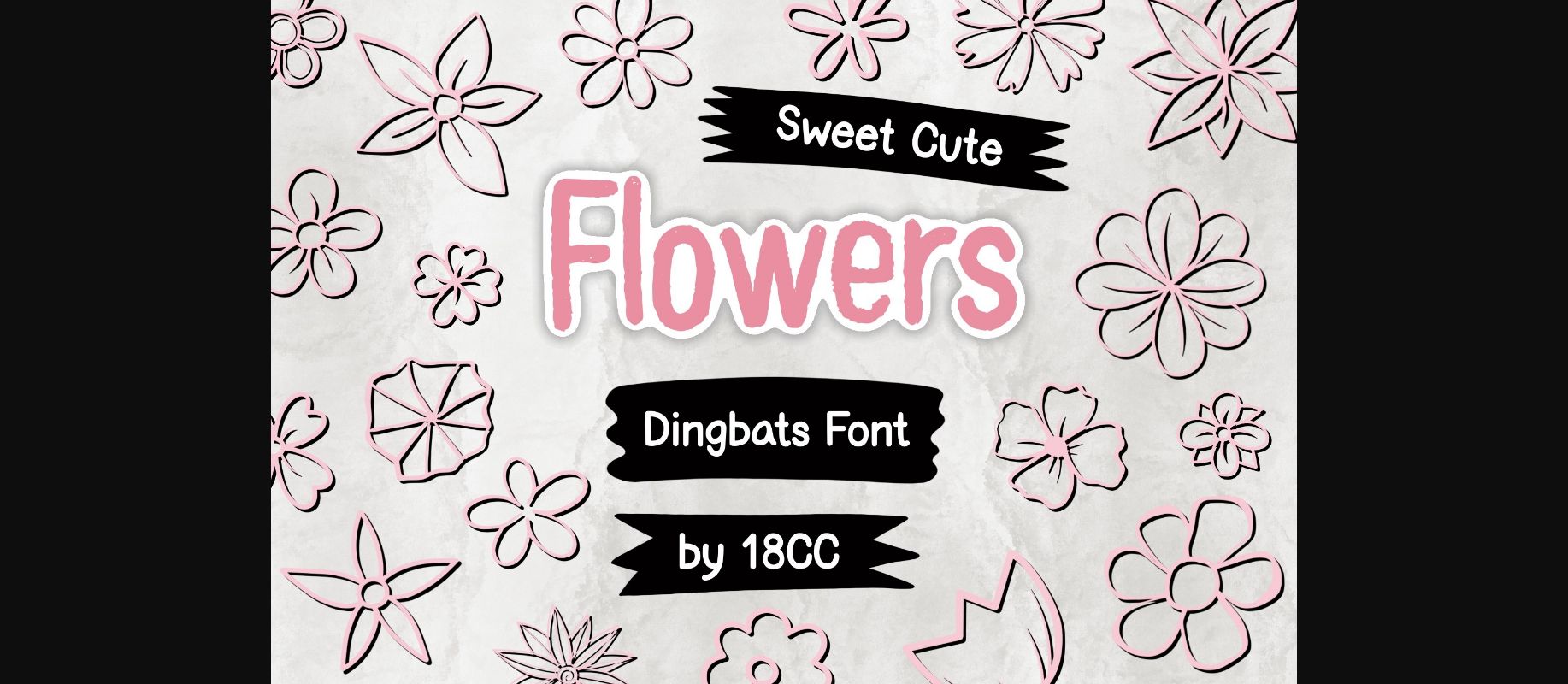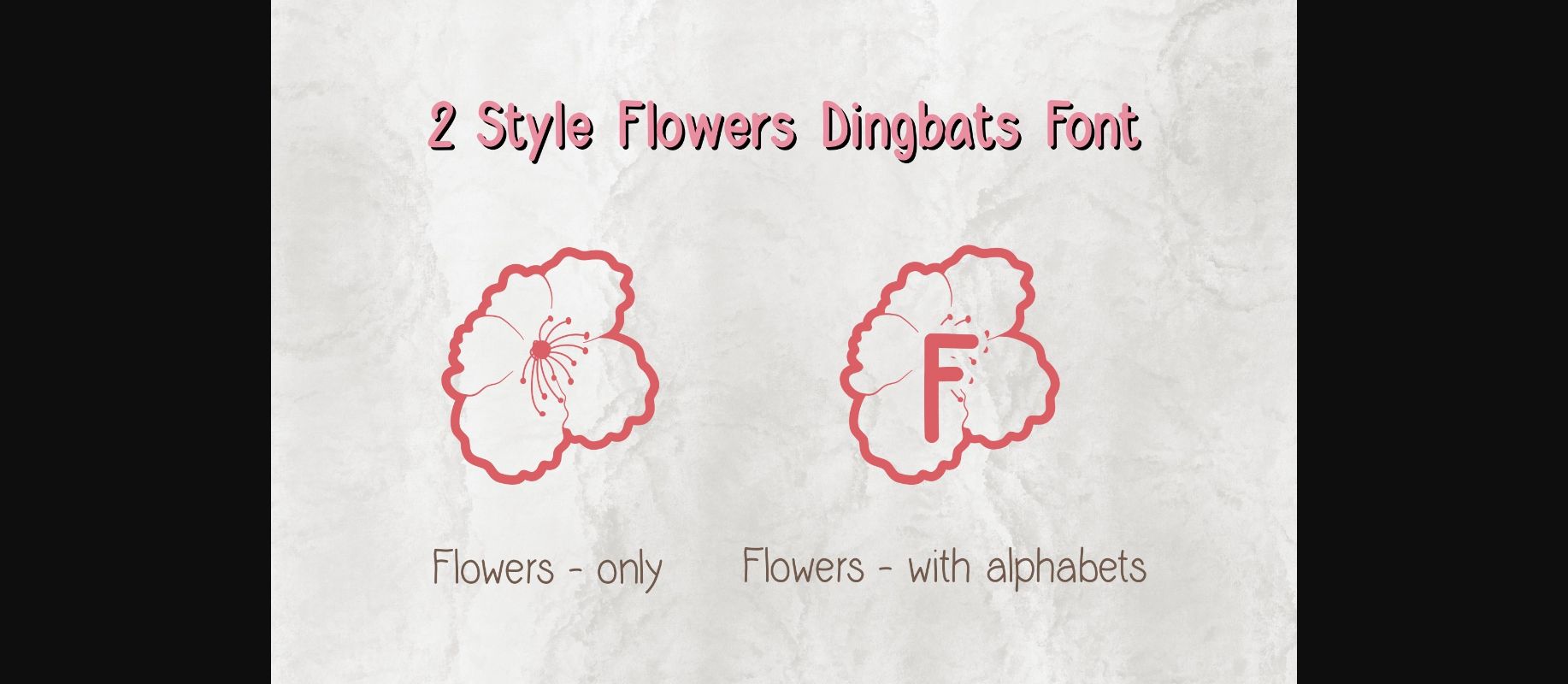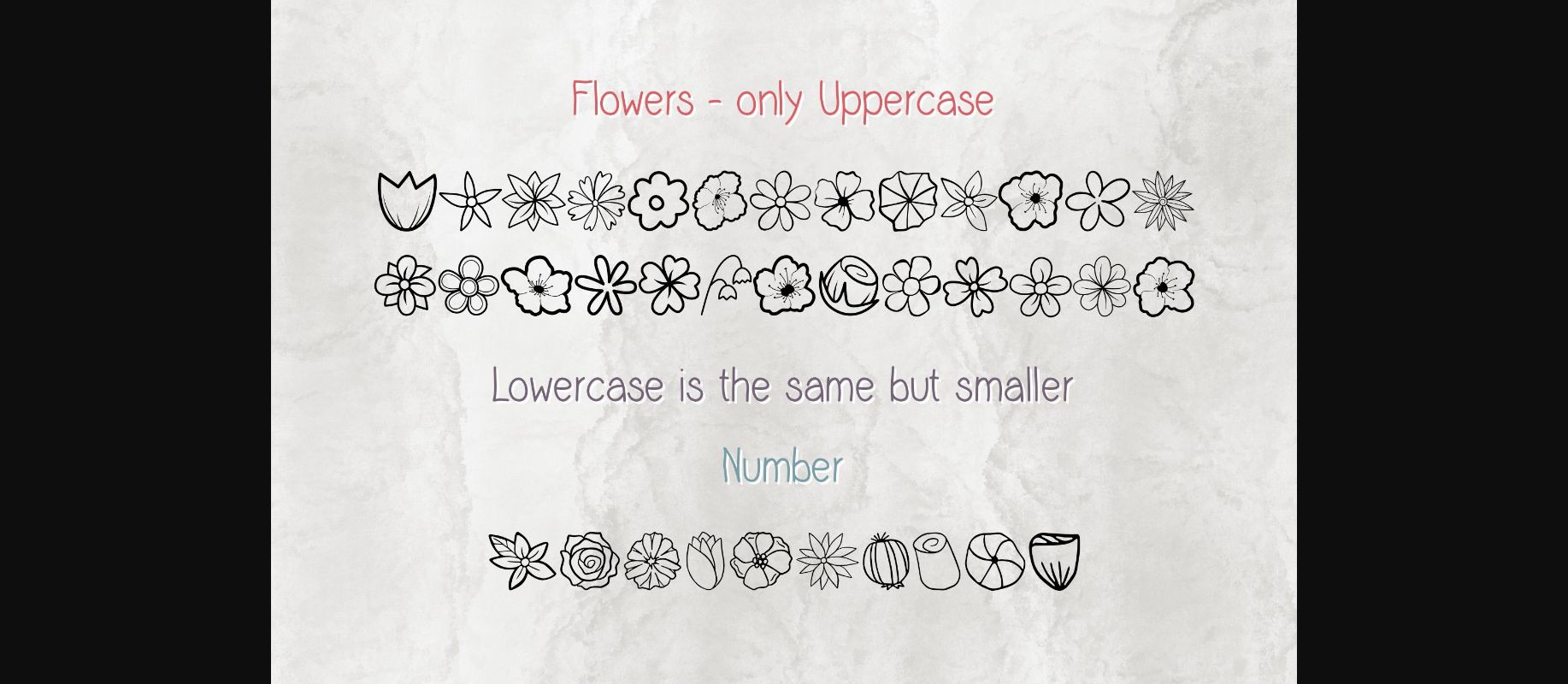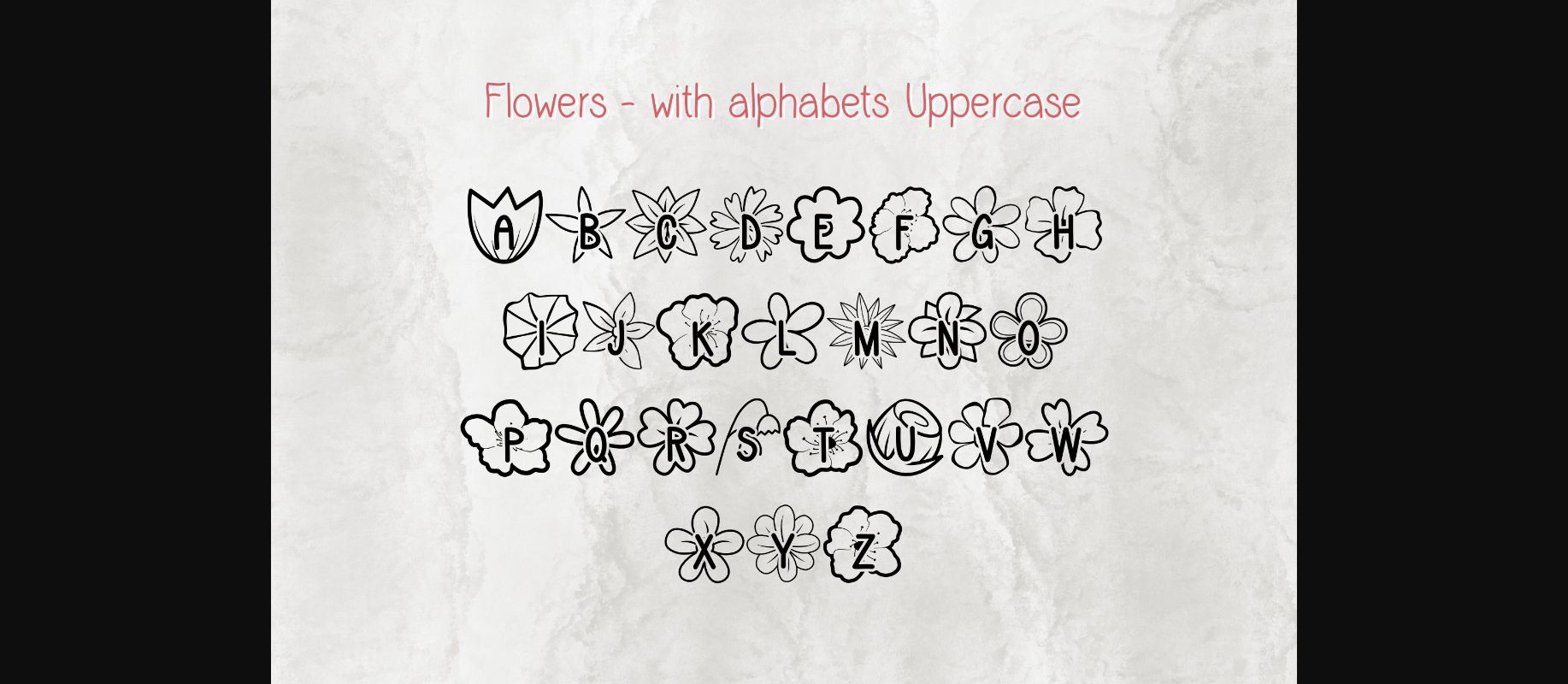
About Flowers Font
Flowers is a cute and sweet duo font (dingbats and decorative). This font is the perfect fit for all of your logos, branding, social media, and crafty DIY projects.